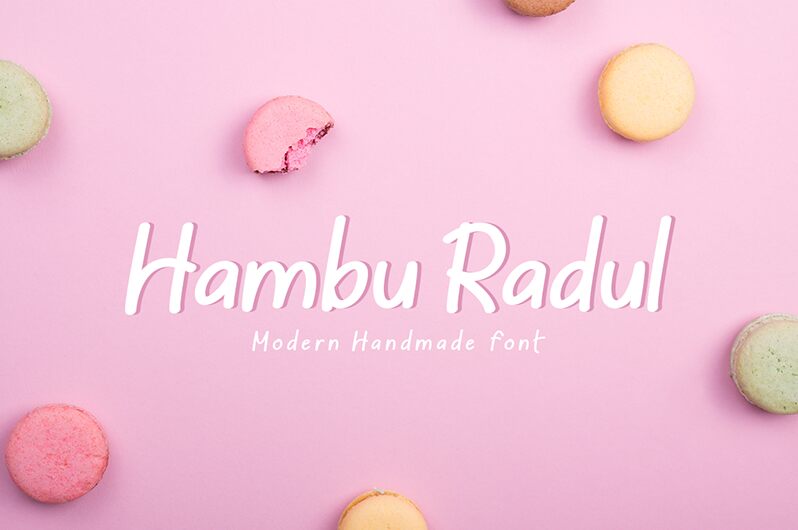
Hambu Radul is a charming semi-light handwritten font designed by CBRTEXT Studio. This versatile font can add a personal touch to any project, from wedding invitations to social media graphics. Its light weight makes it perfect for smaller text, while its unique style adds personality and flair to any design. Hambu Radul's playful appearance makes it suitable for children's book titles, greeting cards, and even logo designs for creative businesses. Give your projects a warm and inviting feel with the whimsical Hambu Radul semi-light font.
Hambu Radul